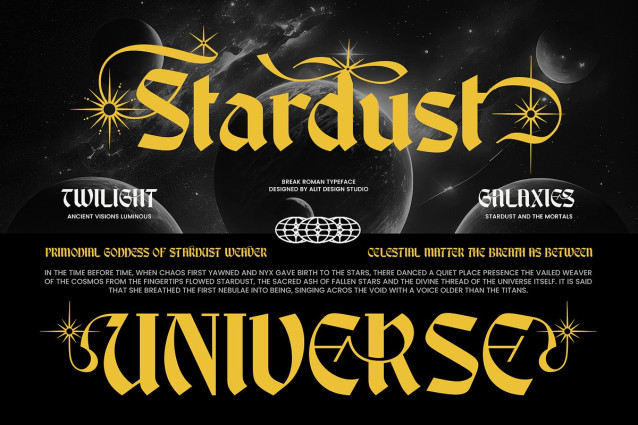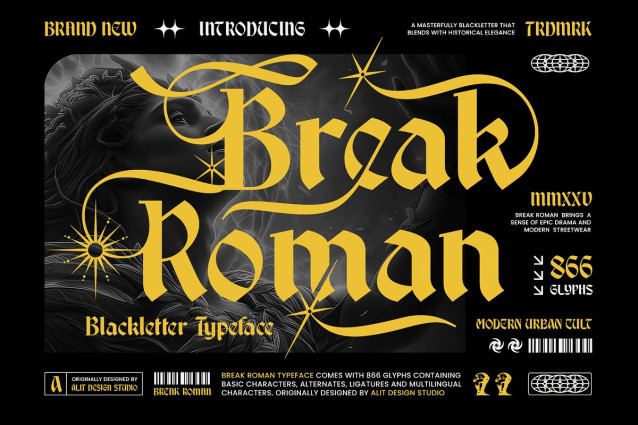
Break Roman Font
Break Roman Font, a highly stylized display typeface that boldly merges the gothic soul of blackletter tradition with the sharp precision of modern serif design. Developed by Alit Design Studio, this typeface isn’t just a font—it’s a typographic experience infused with epic drama, rebellious flair, and meticulous craftsmanship.
Break Roman evokes a visual language that transcends centuries, bringing medieval gravitas into the heart of contemporary visual culture. Its intricate letterforms are designed with a nod to illuminated manuscripts, but updated with assertive modernity that speaks fluently in both luxury editorial layouts and urban streetwear branding.